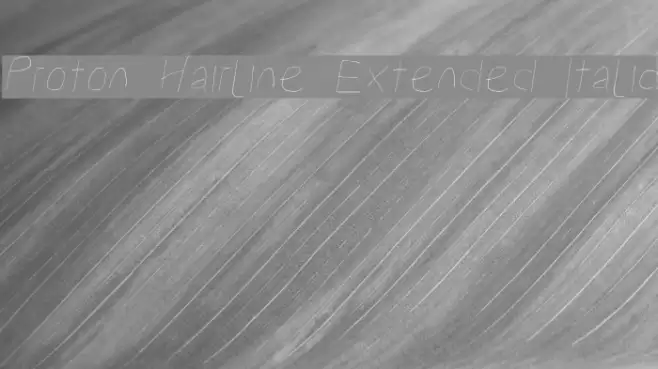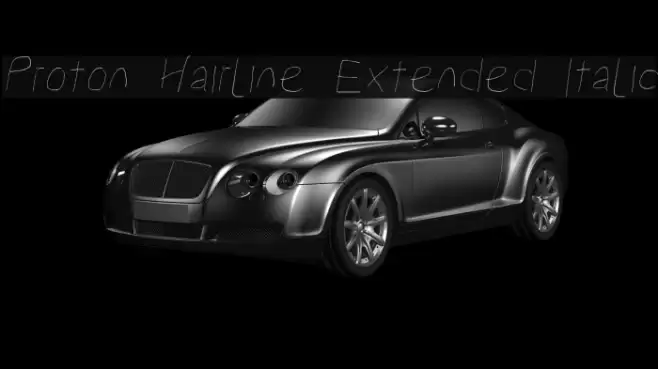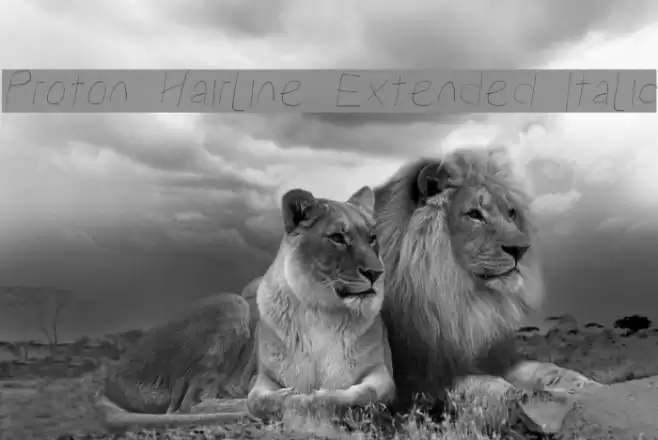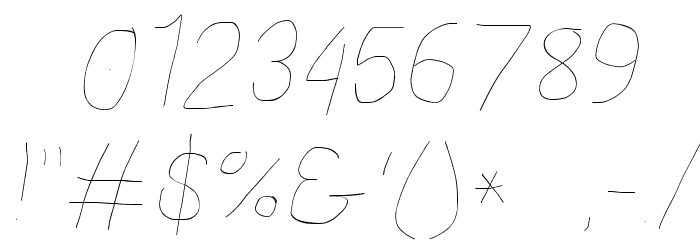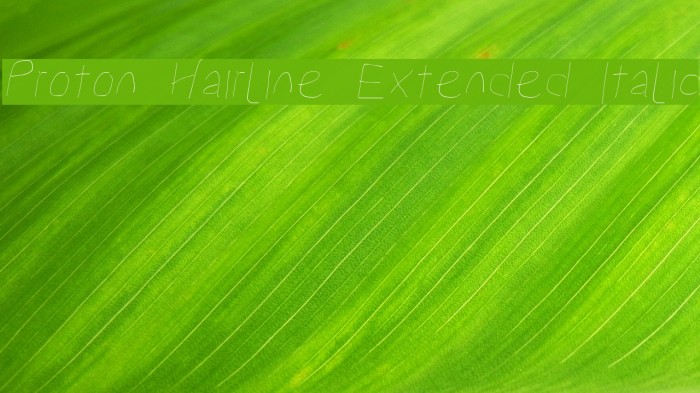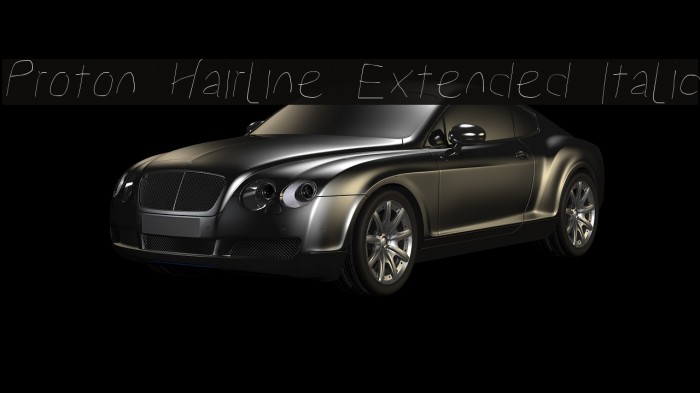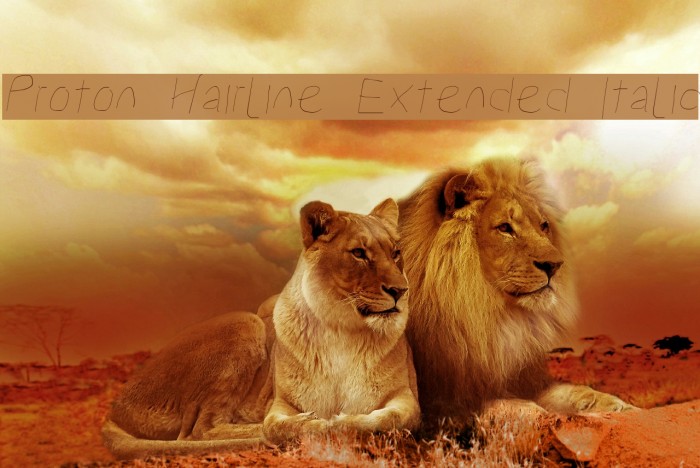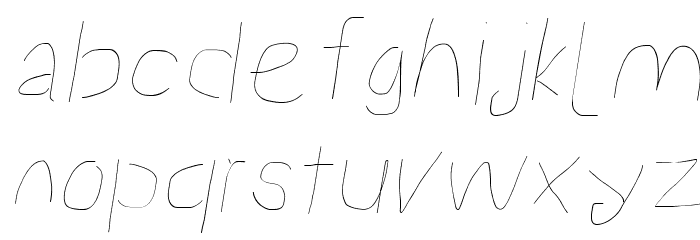
Proton Hairline Extended Italic Font
Proton Hairline Extended Italic Description
This font features a sleek, elongated design with a delicate, hairline stroke that gives it a refined and elegant appearance. The italic slant adds a sense of motion and fluidity, making it suitable for dynamic and modern applications. Each character is carefully crafted with extended proportions, enhancing its readability while maintaining a sophisticated aesthetic. The font's minimalistic approach, combined with its extended width, makes it ideal for creating a contemporary and stylish look. Its thin strokes and clean lines contribute to a high level of legibility, even at smaller sizes, while the italic style provides a touch of elegance and flair.
A sleek, extended, hairline italic font with a modern and elegant style from Modern fonts.
- Proposed Projects: Ideal for fashion magazines, luxury branding, modern websites, and elegant invitations.